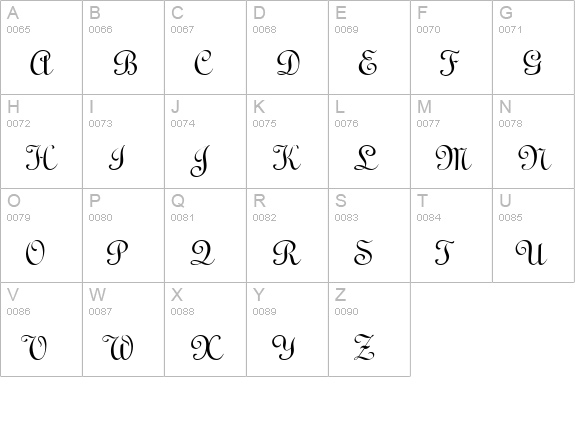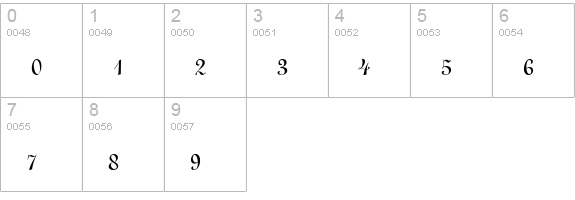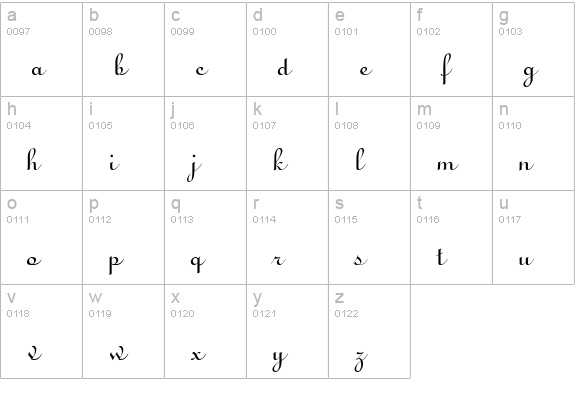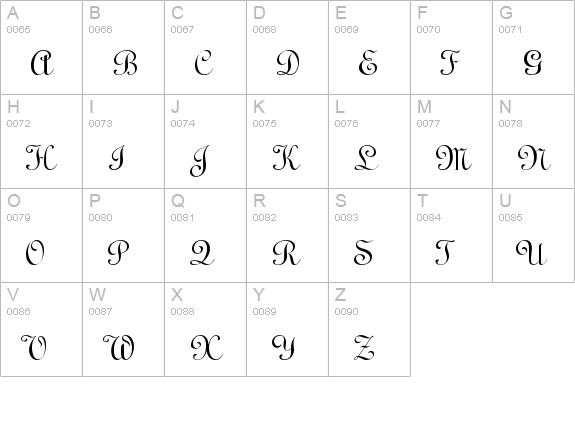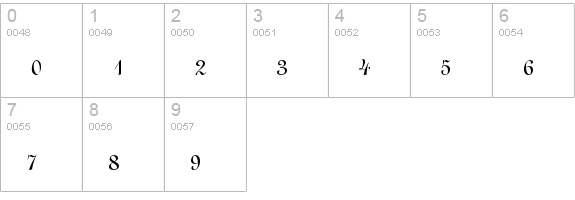
Linus font is a modern and stylish typeface that exudes sophistication and elegance. Its sleek lines and contemporary design make it a versatile choice for a wide range of design projects. Whether you're creating a professional presentation or designing a trendy logo, Linus font is sure to make a bold statement. What sets Linus font apart is not only its aesthetic appeal but also the fact that it is completely free to download. That's right - you can access this beautiful font at no cost on FontsMarket.com. This means you can elevate your designs without breaking the bank. With its clean and crisp letterforms, Linus font is easy to read and perfect for both print and digital applications. Give your projects a touch of sophistication and modernity with Linus font today. Download it for free at FontsMarket.com and start creating stunning designs with ease.